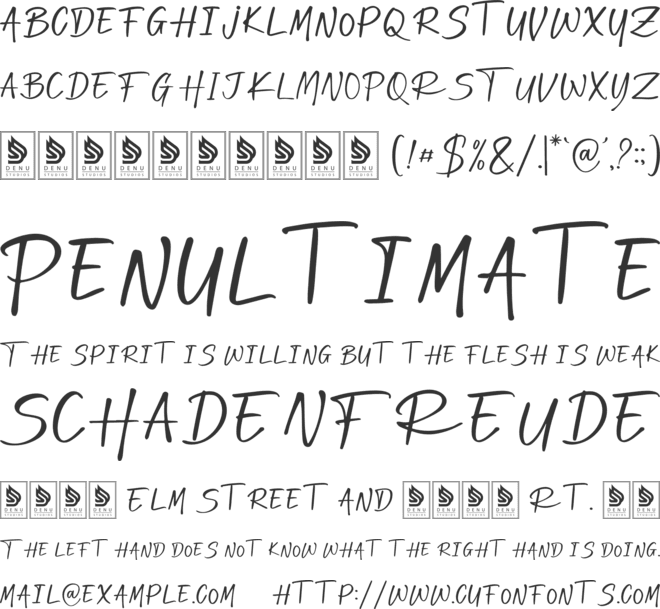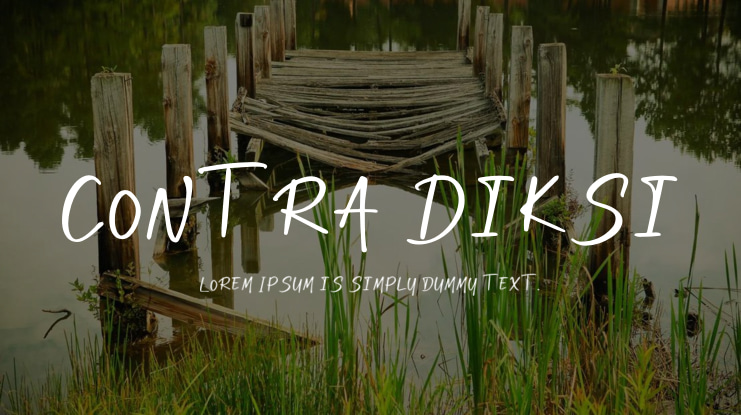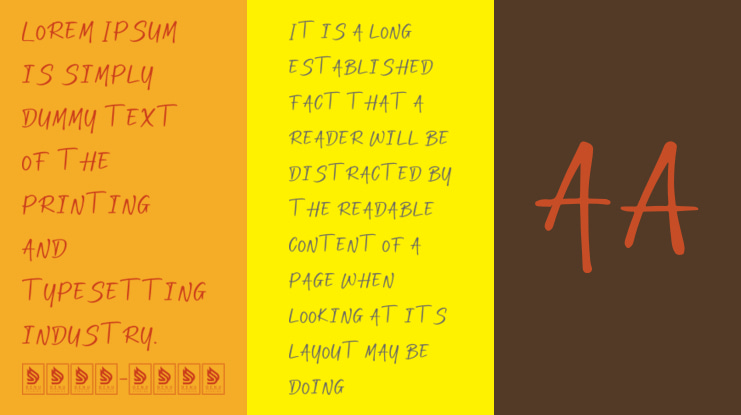
Contra Diksi Font
Contra Diksi | Casual Handwritten Font is ideal for various projects such as logos, branding projects, homeware designs, product packaging, mugs, quotes, posters, shopping bags, t-shirts, book covers, name cards, invitation cards, greeting cards, labels, photography, watermarks, special events, and any of your other lovely projects that need a casual handwritten font touch.